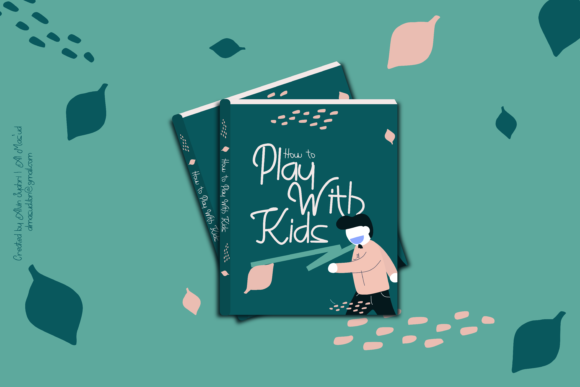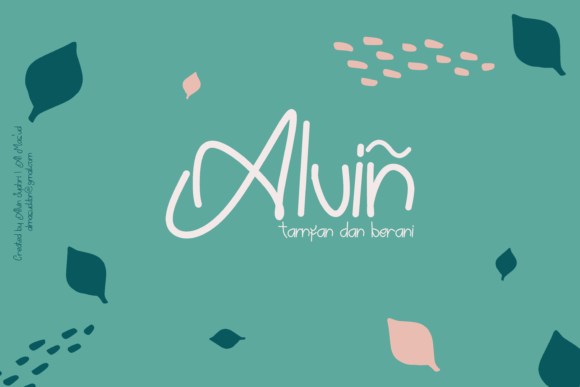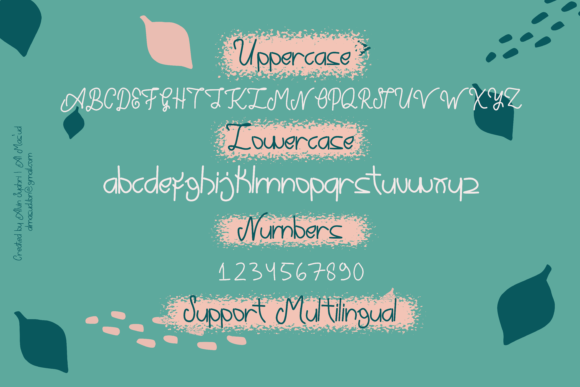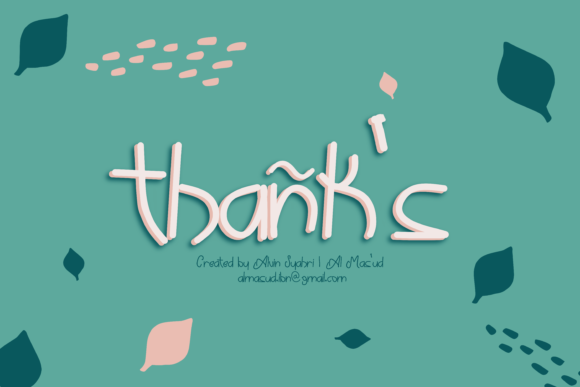
HomeScript FontsPama Font Script Fonts Pama Font FacebookXPinterestWhatsApp Pama Font Poster 2 Pama Font Poster 3 Pama Font Poster 4 Pama Font Poster 5 About Pama Font Pama is beautiful handwritten font with casual & cool appeal. It is perfectly suited for a wide variety of projects! DOWNLOAD ON CREATIVE FABRICAThis font is sold and delivered by Creative Fabrica. Font Canyon may earn a commission if you buy through this link. People also explored Night Candle Font Dobbie Font Romtthing Girl Font Seriously Imagine Font MultiType Lines Narrow Bold Font Duncan Hardacre Font Maunaloa Font Notebook V.3 Font Britney Hills Font 309 0 TagsPama Font Previous articleMulia FontNext articleNoiry Font LEAVE A REPLY Cancel reply Comment: Please enter your comment! Name:* Please enter your name here Email:* You have entered an incorrect email address! Please enter your email address here Website: Save my name, email, and website in this browser for the next time I comment. Personal Use Free Pridaem Cooper Personal Use Free Read more about this font Lion Teen Personal Use Free Read more about this font Sebastopol Personal Use Free Read more about this font Ennobled Pet Personal Use Free Read more about this font BLOG How to Install and Use Fonts on Windows, macOS, and Web Projects How to Install and Use Fonts on Windows, macOS, and Web Projects Fonts are a crucial part of design and branding. Whether you’re designing a... Exploring Font Trends Best Fonts for T-Shirt Design – Top 2025 Picks How to Cut Any Font on Cricut: Convert a Font to SVG (Free)